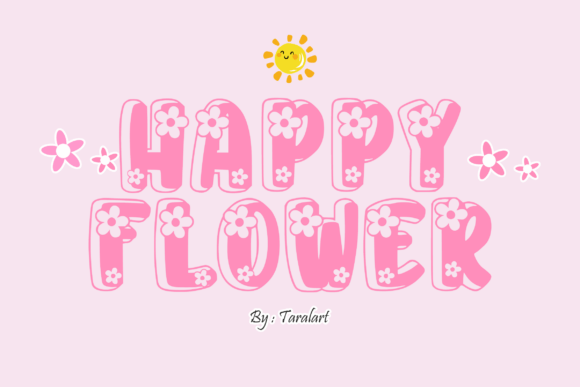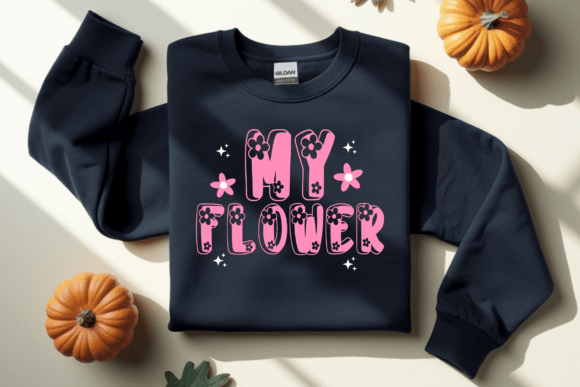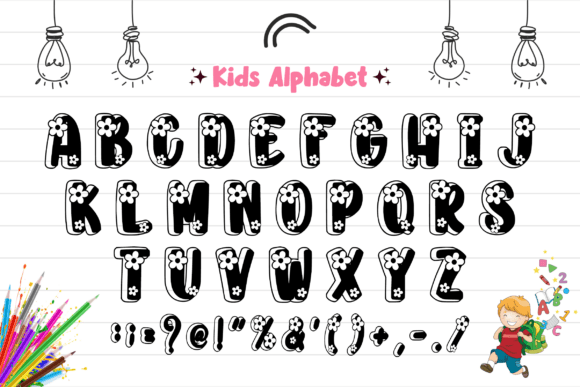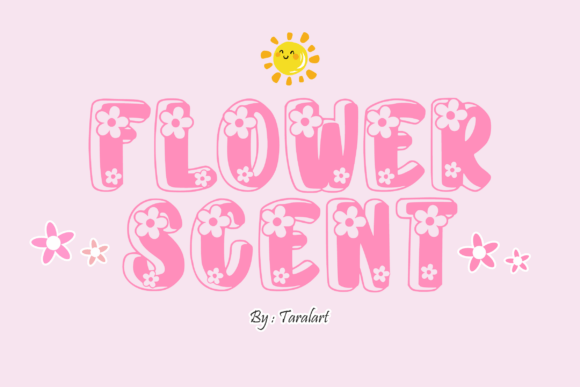
Introduction to Flowerscent Regular Font
Experience the enchanting charm of β€œFlower Scent” β€” a modern decorative typeface where every letter blooms with floral elegance.
This vibrant and distinctive font is the perfect companion for your creative projects, from sublimation designs on t-shirts to eye-catching merchandise like mugs and tote bags, animated scenes, and even comic book titles Let β€œFlower Scent” awaken your imagination and add a refreshing, floral twist to every design.